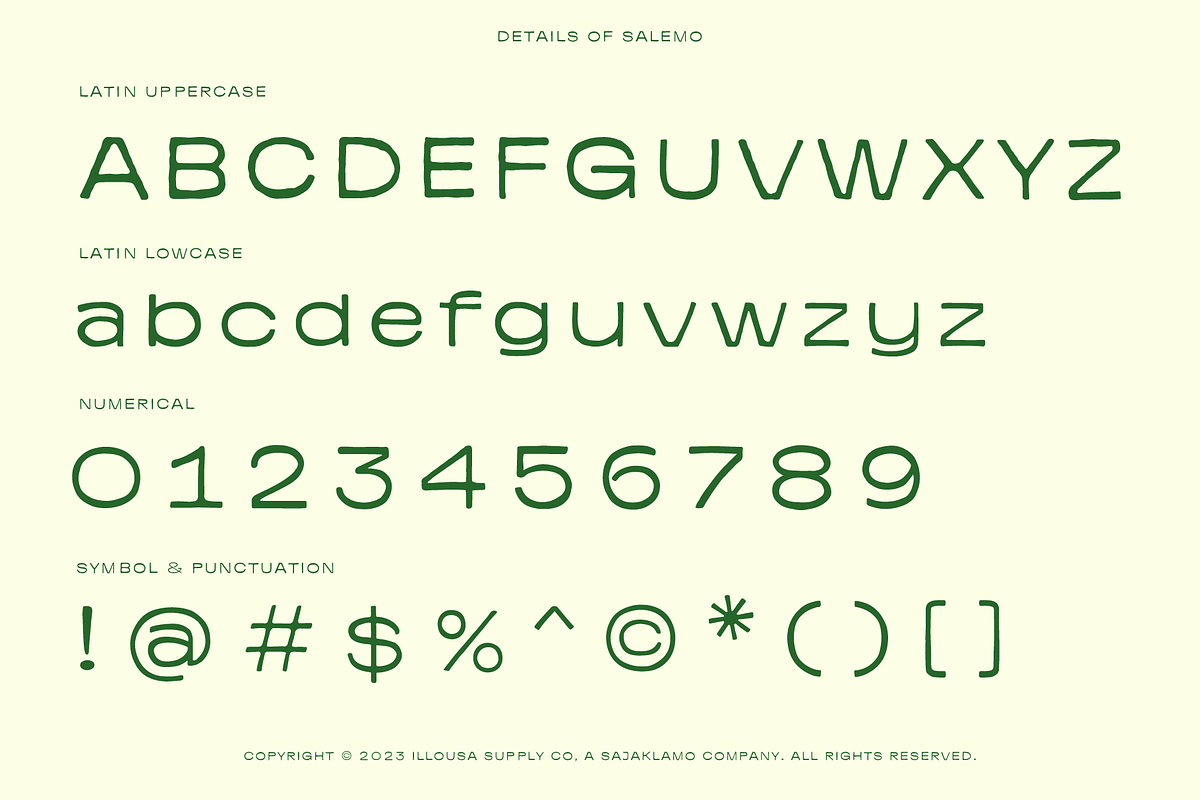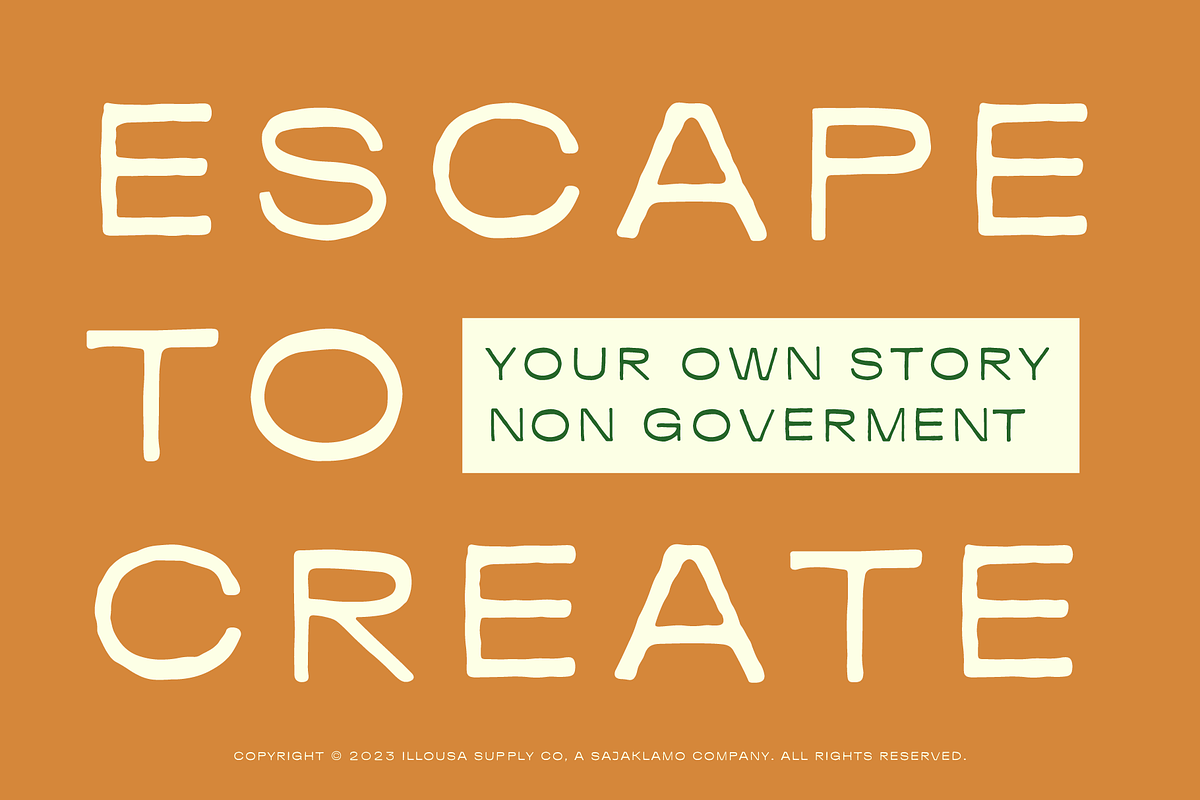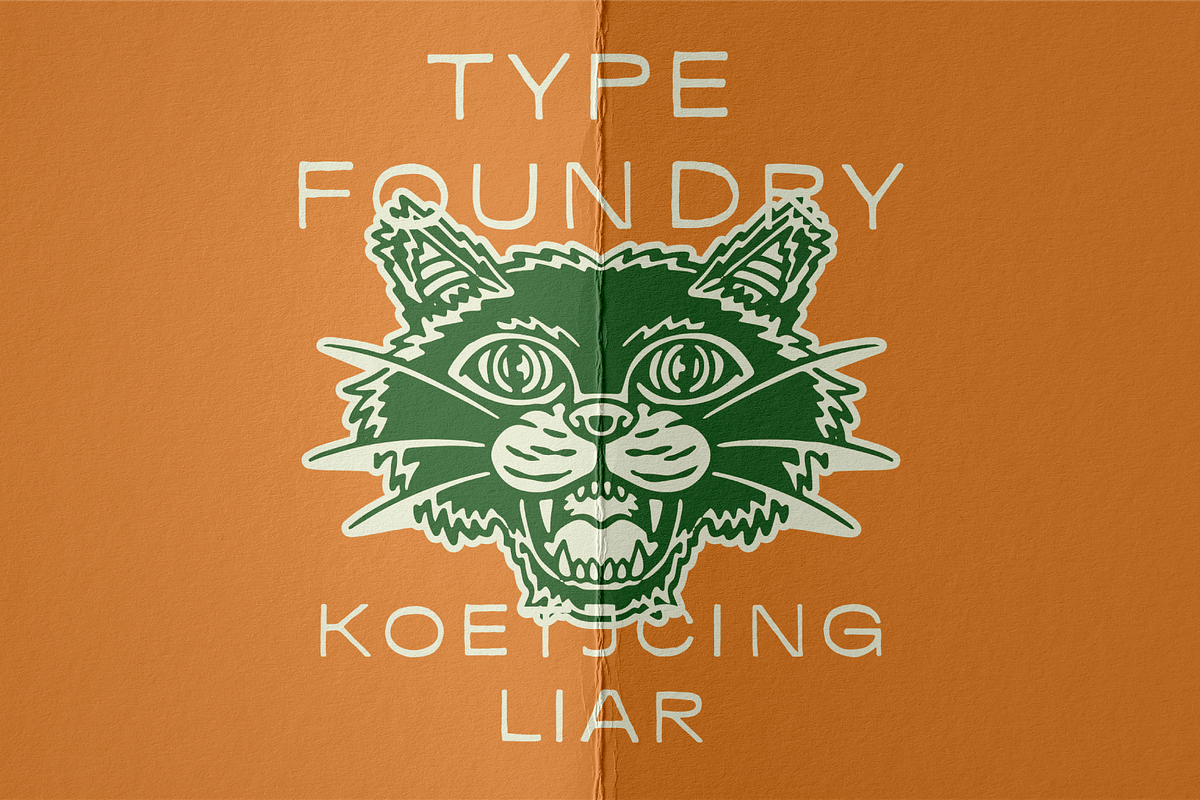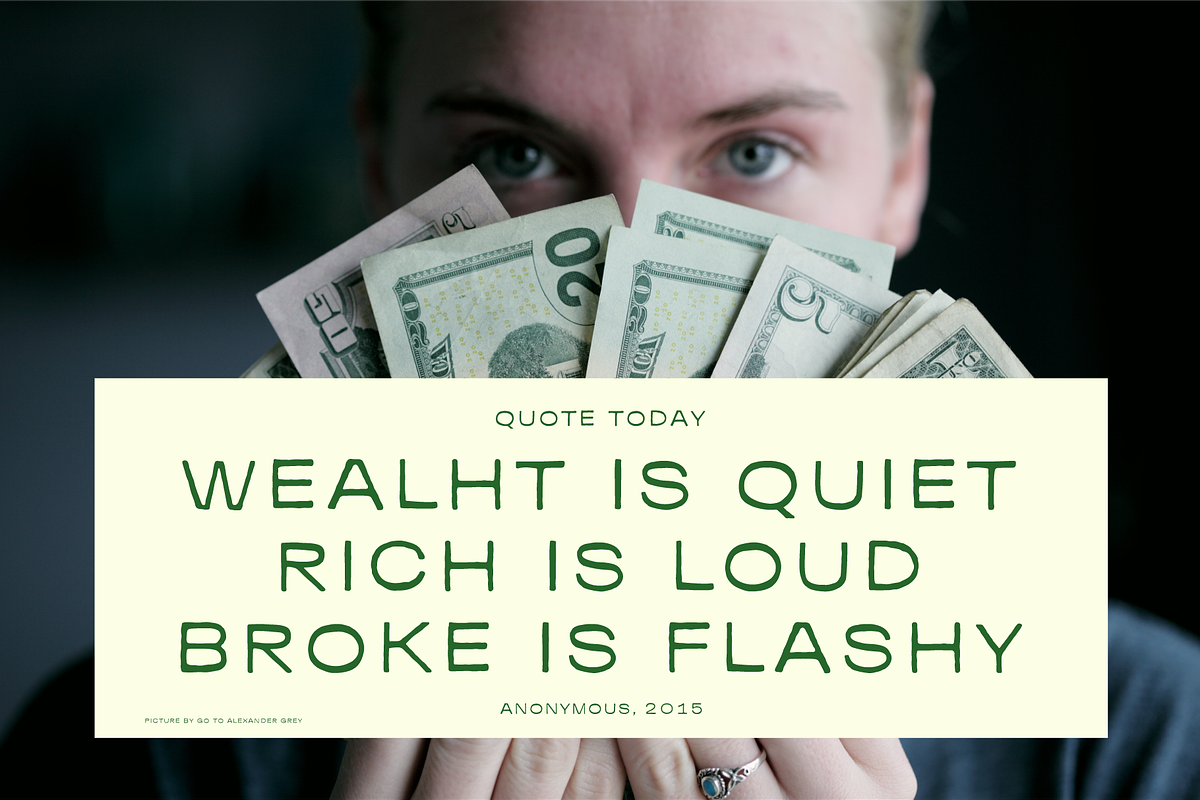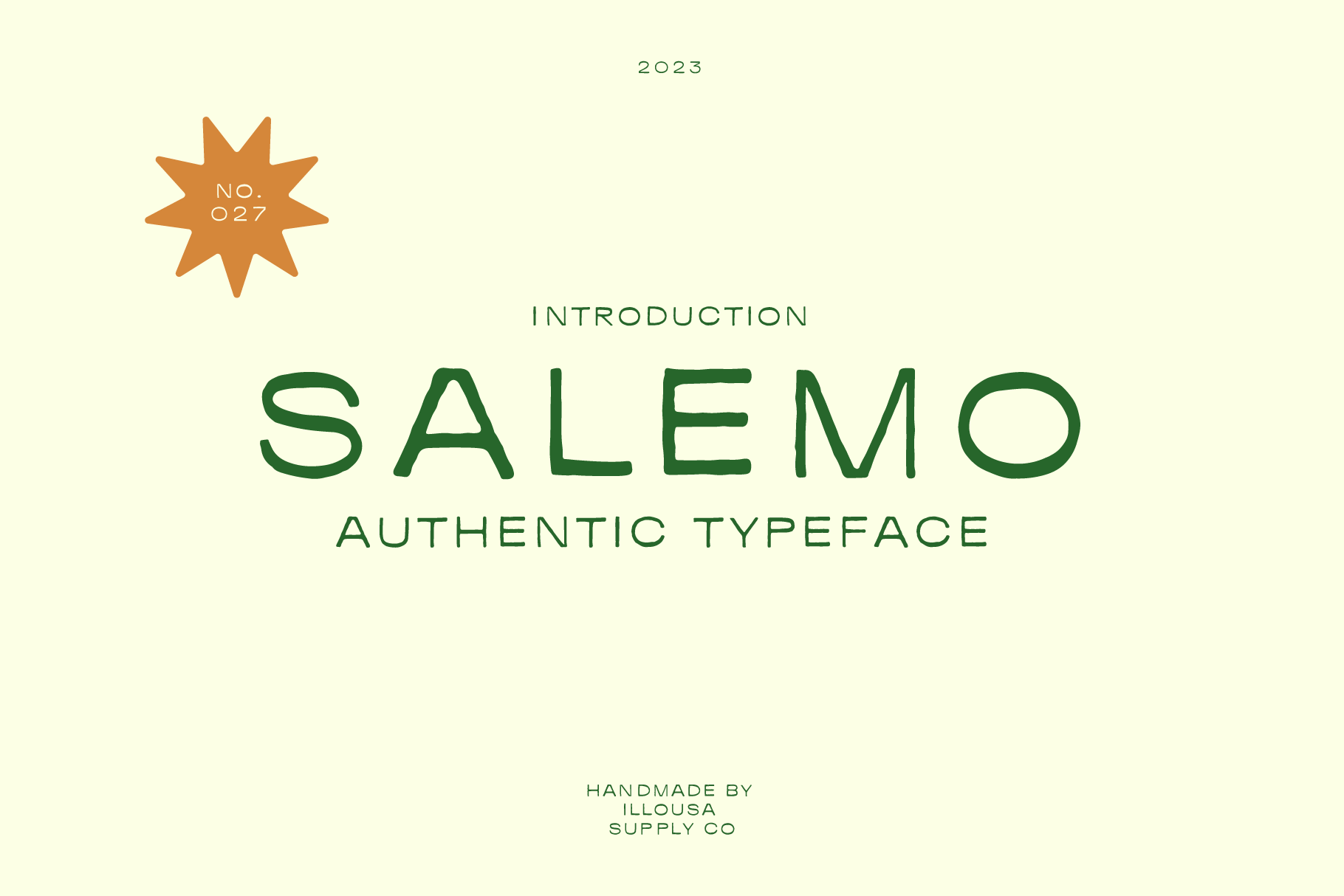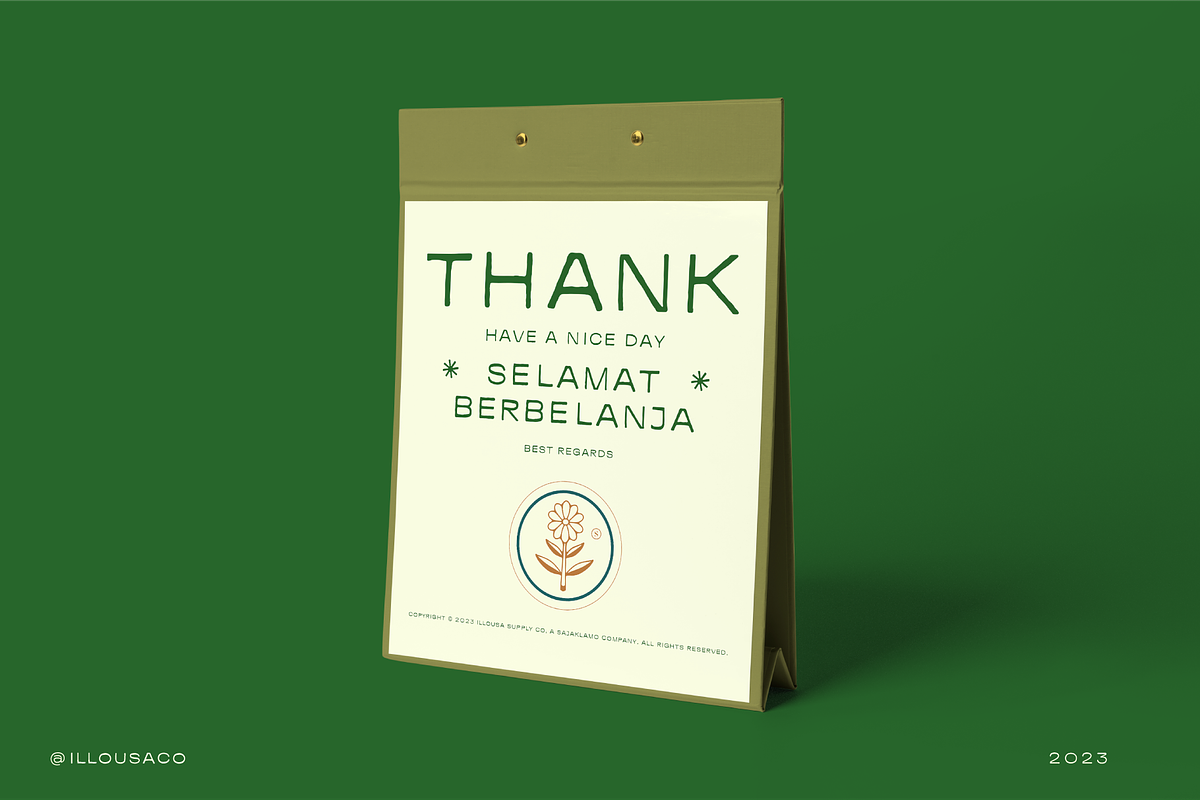
Salemo Vintage Minimalism Font is a top-selling minimalist sans serif typeface inspired by vintage print aesthetics. With clean, timeless letterforms and subtle vintage character, Salemo is perfect for logos, branding, posters, magazines, websites, editorial layouts, and digital design. Its elegant simplicity ensures high readability and professional appeal, making it a versatile choice for designers seeking both style and functionality.
KEY FEATURES
- Minimalist vintage sans serif style
- Clean, timeless letterforms for versatile use
- Subtle texture for retro character (optional)
- Uppercase & lowercase letters, numerals & punctuation
- Strong visual presence for headlines & logos
- Crafted for professional and modern layouts
PERFECT FOR
- Minimalist & vintage branding
- Logos, packaging, merchandise
- Posters, flyers, magazines, books
- Websites & social media graphics
- Editorial design and professional print projects